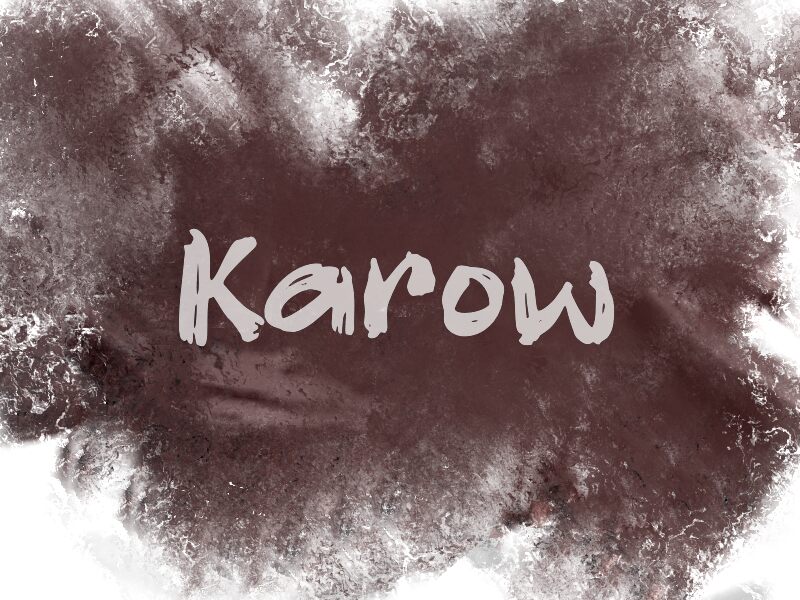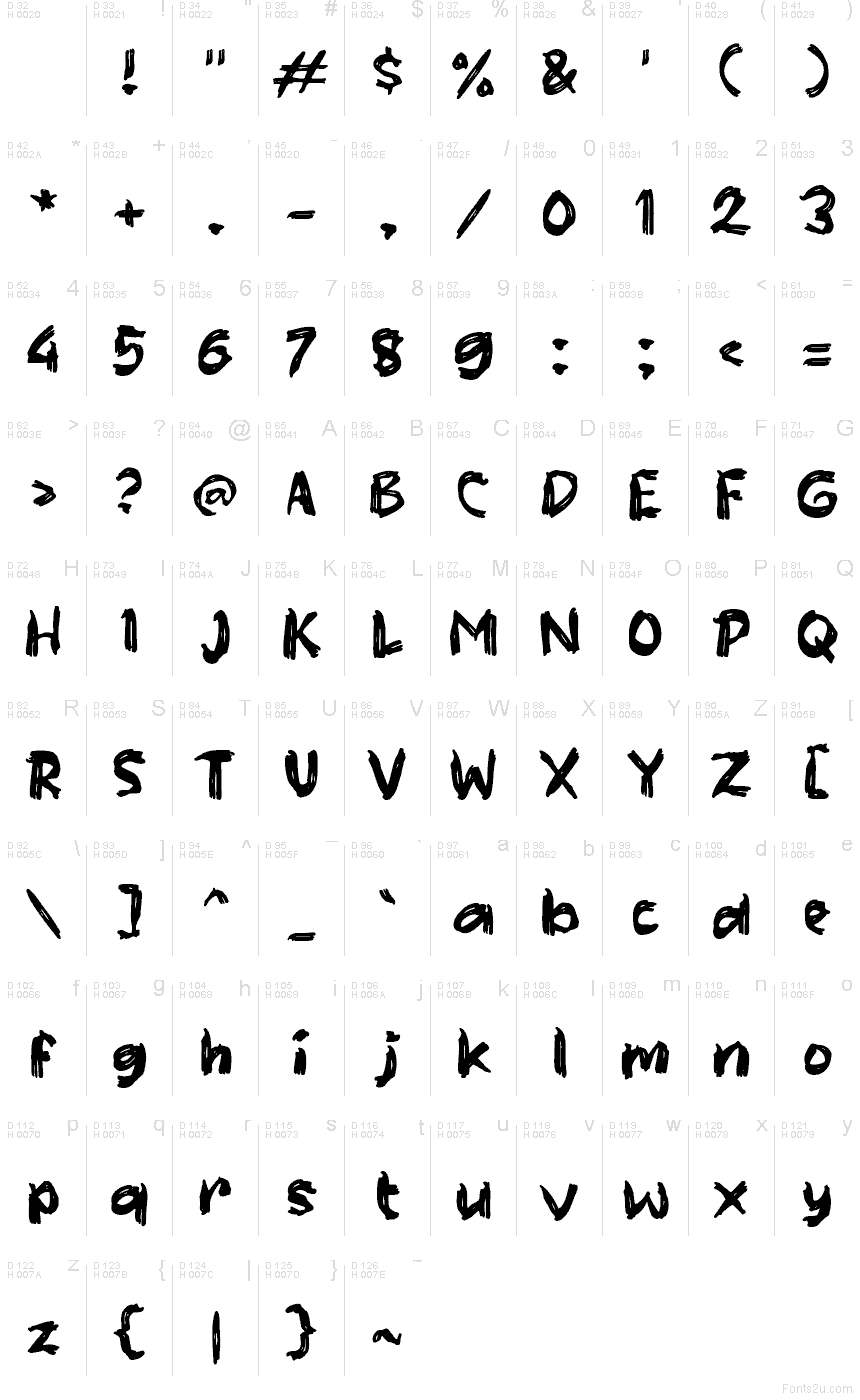
Karow font by wep is a free trash script typeface that looks like it’s been slashed onto the page with a thick, half-dry marker. The strokes are rough, inky, and slightly uneven, giving every word a raw, street-level energy. It feels loud and urgent, like something you’d spot on a grungy gig flyer stapled to a lamp post or scrawled across a skate deck.
Using Karow, this free font shines on punk and metal album covers, DIY event posters, horror titles, streetwear graphics, zines, and rebellious social media art. The bold texture holds up at larger sizes, where all the splatters and smears really come through. Pair Karow with a clean, condensed sans serif for body text to keep your layouts gritty but still readable.
Karow